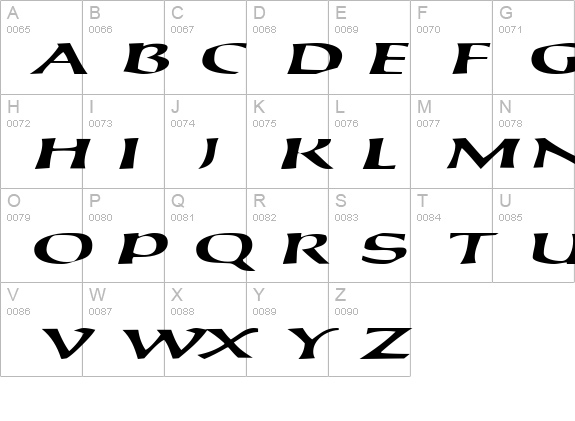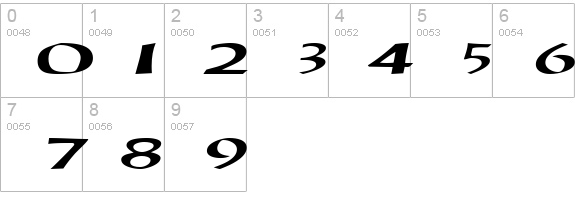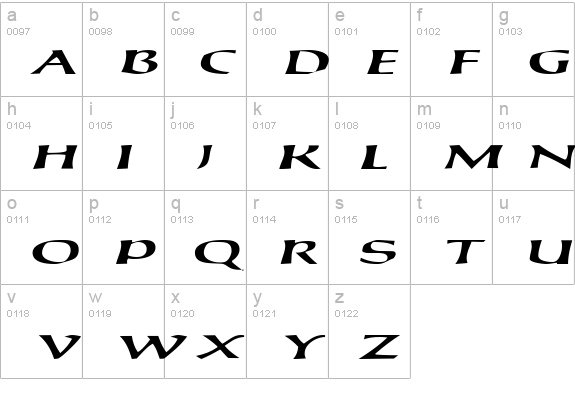
CayaugaSCapsSSK Italic Font Details
CayaugaSCapsSSK Italic is a distinctive, italic variant in the CayaugaSCapsSSK typeface family \xE2\x80\x94 well suited to design and typography projects.
CayaugaSCapsSSK Italic is a stylish and elegant font that exudes sophistication and charm. Its slanted design adds a touch of dynamism and flair to any text, making it perfect for projects that require a refined and modern look. The italicized letters flow seamlessly, creating a sense of movement and energy that draws the eye. This font is ideal for use in branding, editorial design, invitations, and any other creative project where a touch of sophistication is needed. The delicate curves and unique letterforms of CayaugaSCapsSSK Italic make it a versatile choice that can be used in a variety of design contexts. Best of all, CayaugaSCapsSSK Italic is available for free download at FontsMarket.com. This means you can easily access this stunning font and incorporate it into your projects without any cost. Don't miss out on the opportunity to enhance your designs with this beautiful and distinctive typeface. Download CayaugaSCapsSSK Italic today and elevate your creative work to new heights.